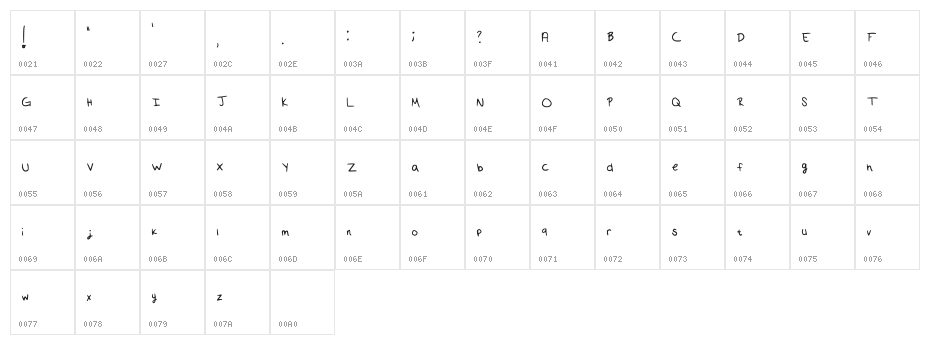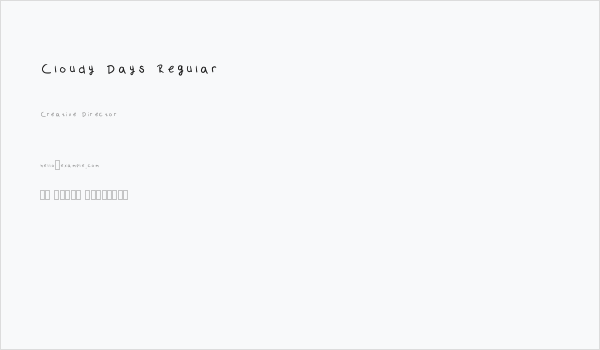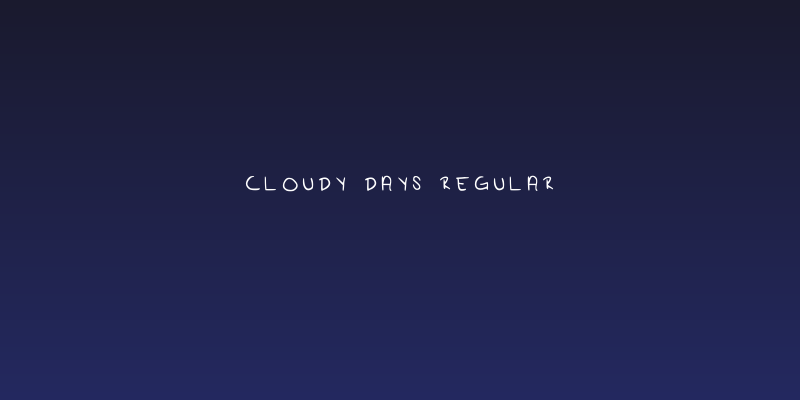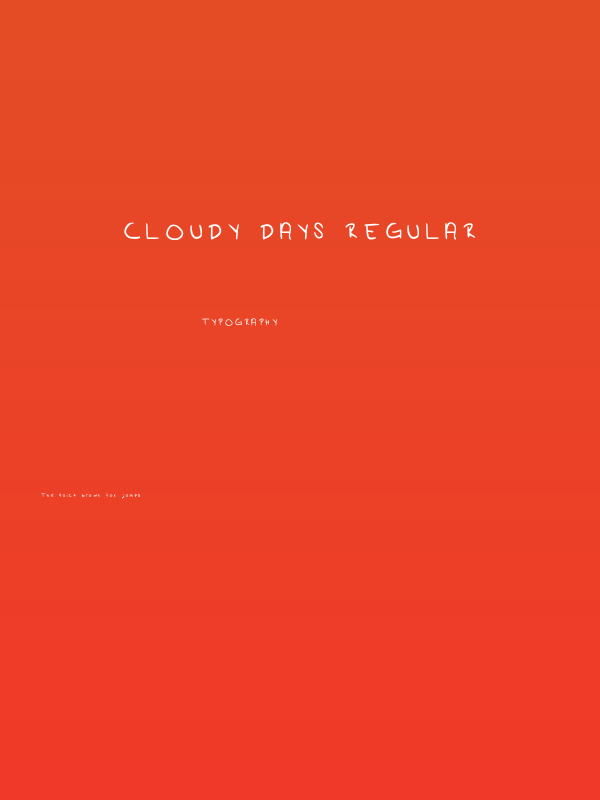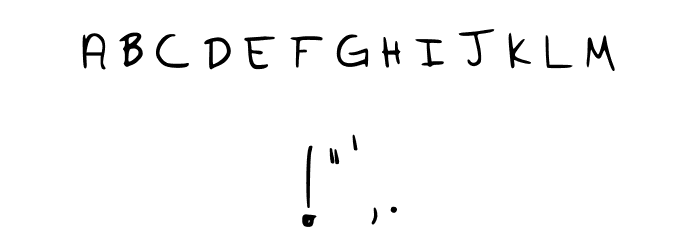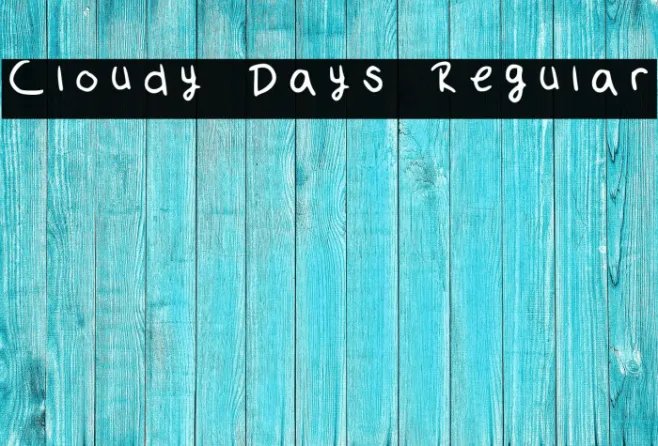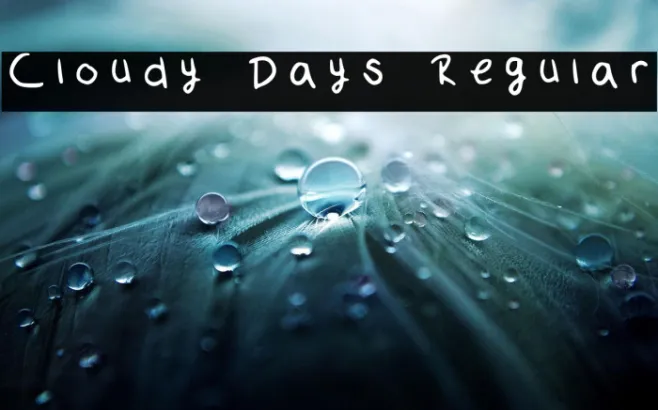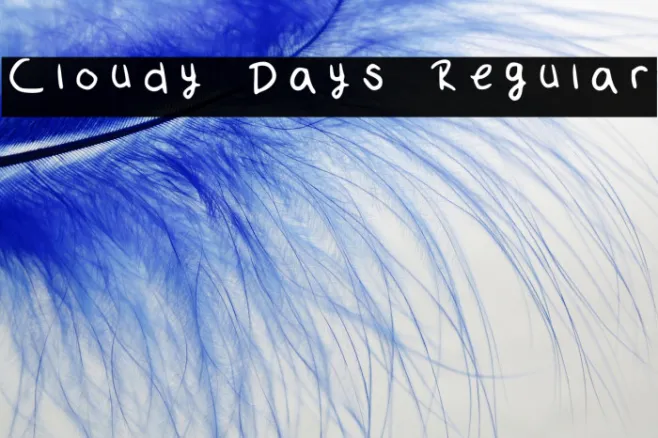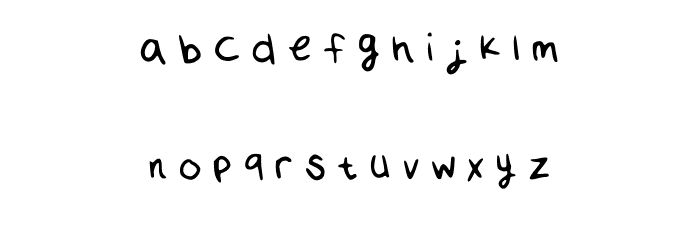
Cloudy Days Regular Font
Cloudy Days Regular Description
This font exudes a playful and casual handwritten style, characterized by its irregular strokes and slightly uneven baseline. The letters have a whimsical charm, with a mix of rounded and angular forms that give it a friendly and approachable appearance. The uppercase and lowercase letters maintain a consistent flow, while the numerals and special characters blend seamlessly with the overall design. The font's informal nature makes it ideal for projects that require a personal touch or a relaxed vibe.
| Use Case | Headlines, Informal text, Personal projects |
| Proposed Projects | Great for greeting cards, children's books, personal blogs, and informal branding. |